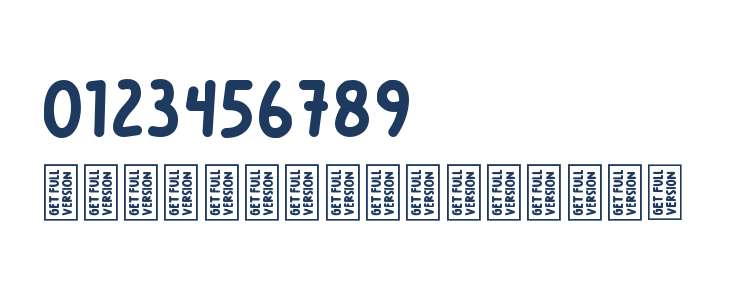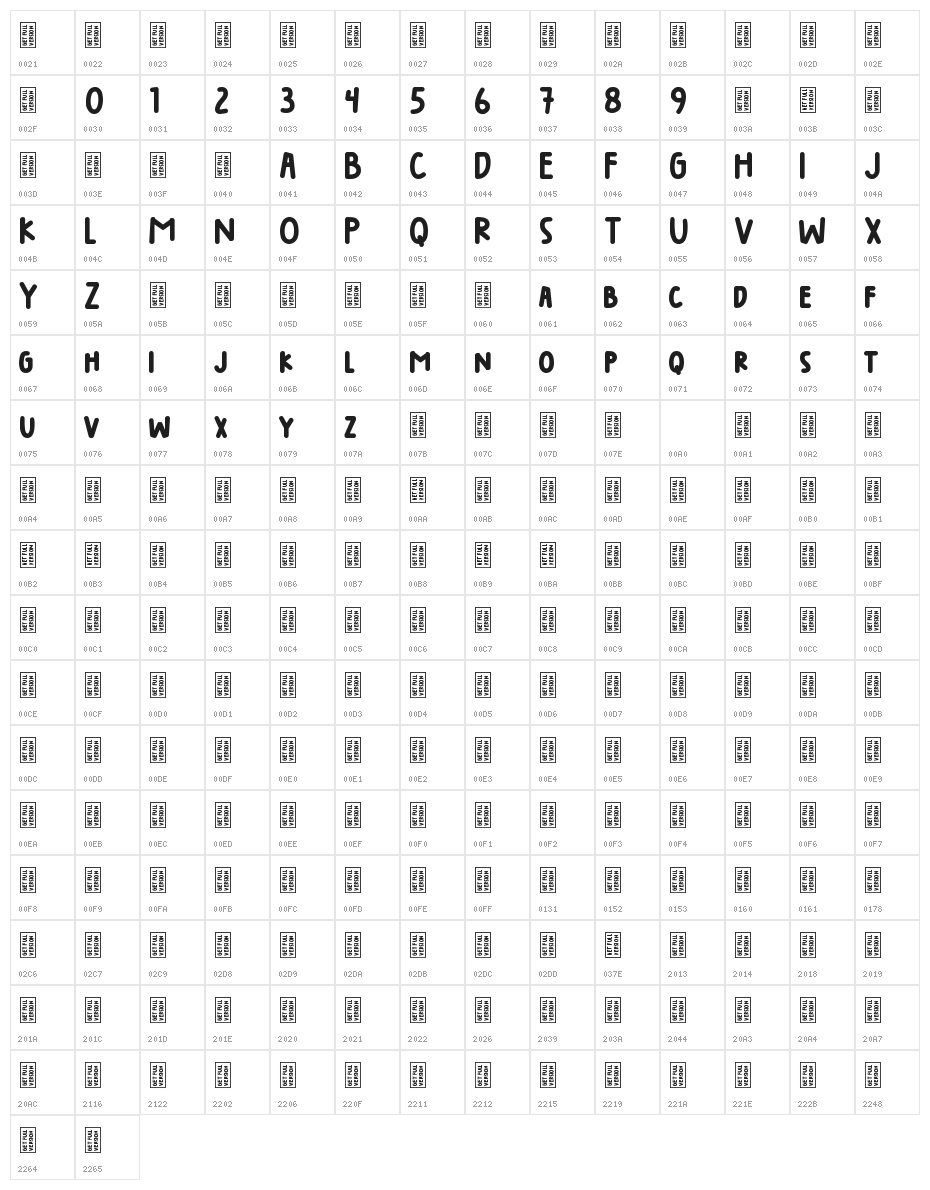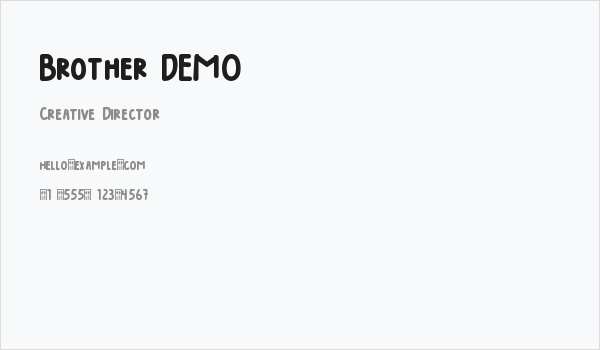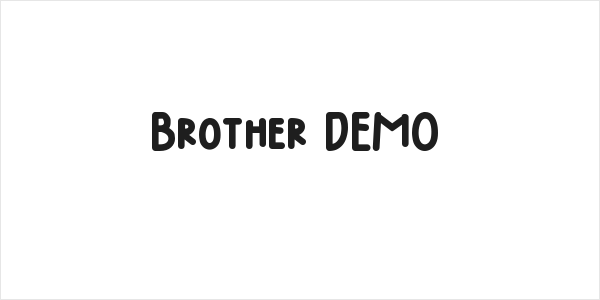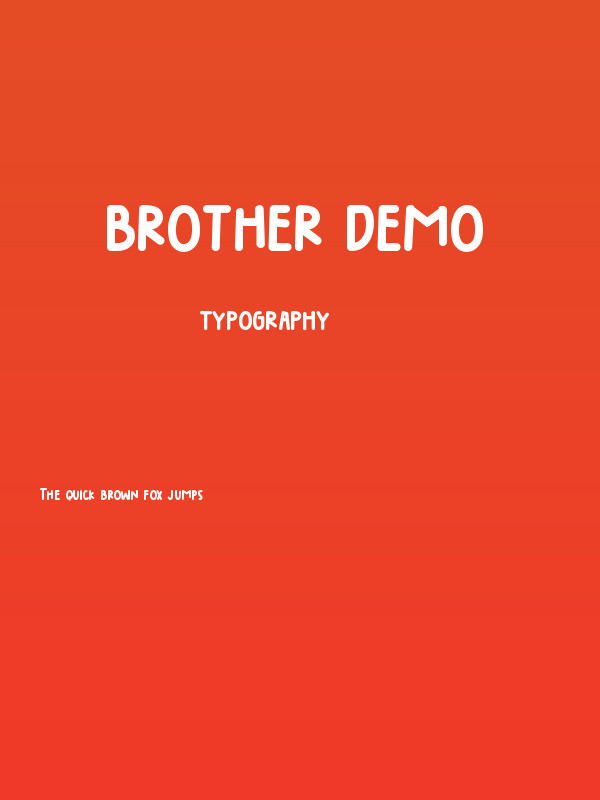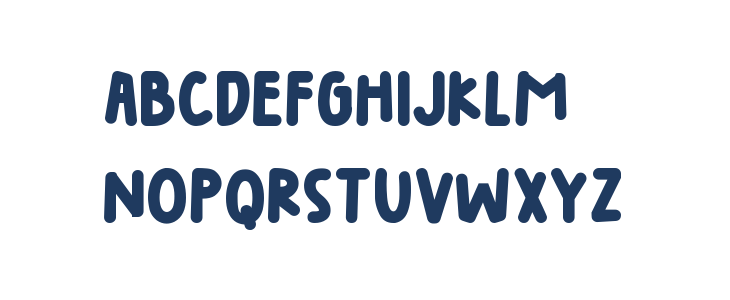
Brother DEMO Font
Brother DEMO Description
This font features a playful and bold style with rounded edges and a slightly irregular baseline, giving it a hand-drawn appearance. The characters are thick and uniform, providing a strong visual impact. The uppercase and lowercase letters maintain a consistent weight, while the numbers are clear and easily distinguishable. The overall design is friendly and approachable, making it suitable for informal and creative projects. The font's unique character shapes add a touch of whimsy, making it stand out in various design contexts.
| Proposed Projects | Ideal for children's books, posters, logos, and playful branding. |